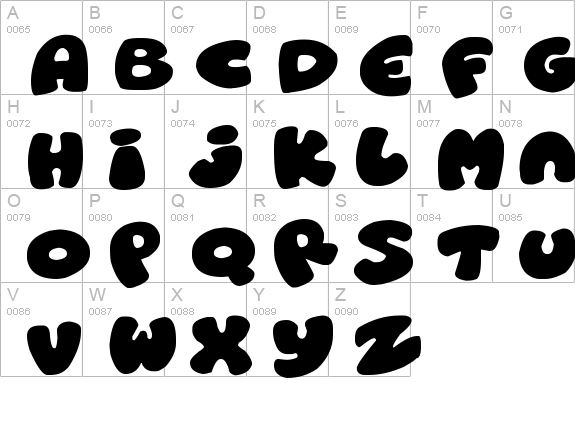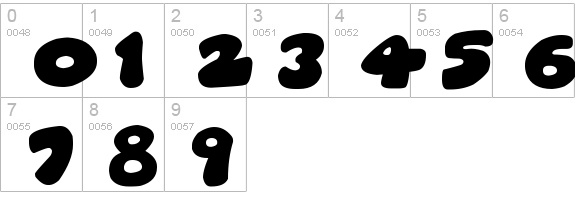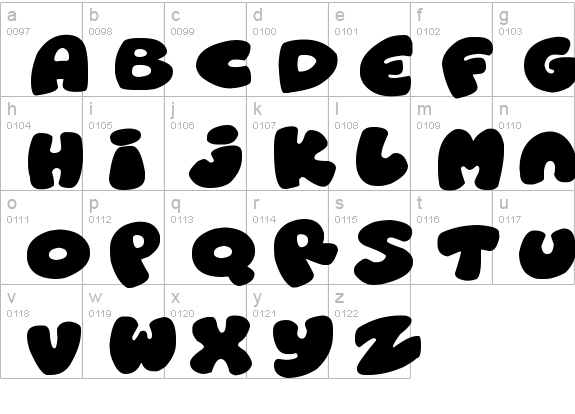
Roundish Toons Font Details
Roundish Toons is a free for personal use font in the Fancy > Comic category, designed by Darrell Flood. It has been downloaded 186 times and is available for Windows, Mac and Linux.
Roundish Toons font is a charming and playful typeface that adds a touch of whimsy to any design project. With its rounded edges and friendly appearance, this font is perfect for creating eye-catching and fun designs. Whether you're working on a children's book, a greeting card, or a poster for a special event, Roundish Toons font is sure to bring a smile to your audience's face.